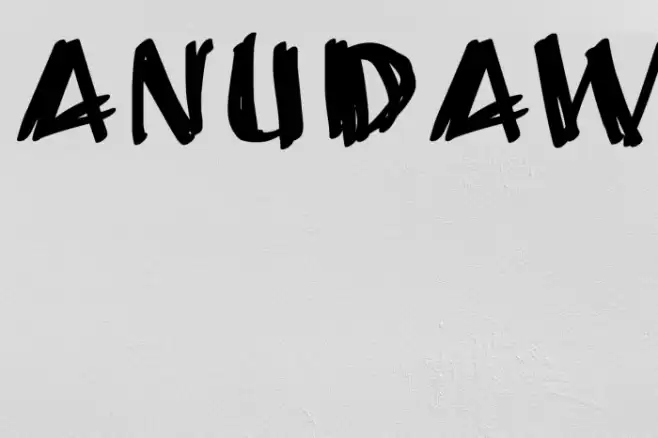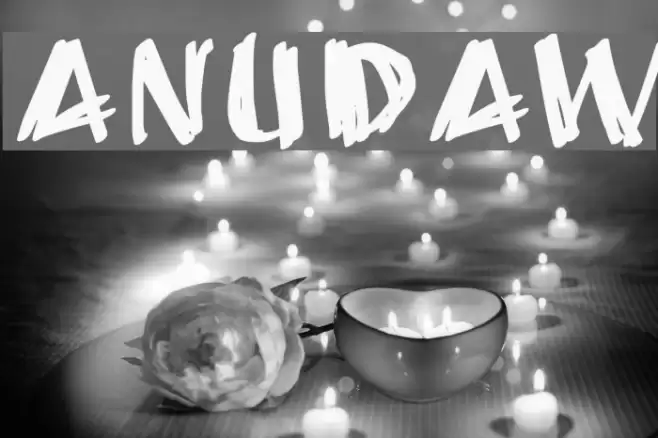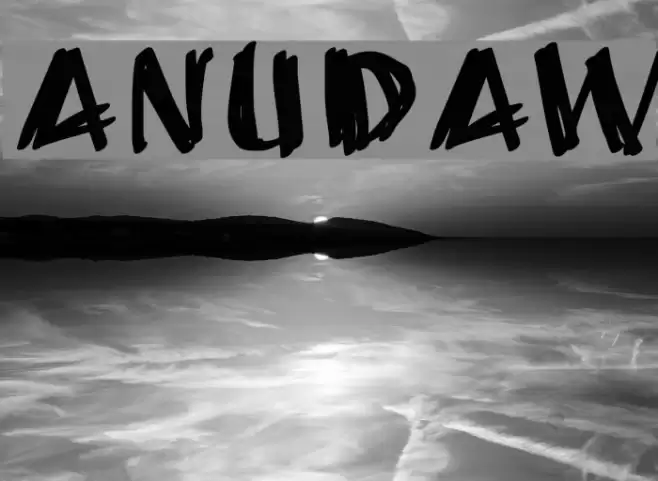
AnuDaw Font
AnuDaw Description
This font features a bold, energetic style with a hand-drawn appearance, characterized by thick, uneven strokes that convey a sense of dynamism and creativity. The letters have a rough, textured look, giving them a raw and expressive quality. The uppercase and lowercase letters maintain a consistent style, with a slight slant that adds to the font's informal and lively feel. The numbers and special characters are equally bold and maintain the same energetic style, making them stand out. This font is perfect for projects that require a personal touch or a sense of movement and excitement.
A bold, hand-drawn font with an energetic and dynamic style from Uncategorized fonts.
- Proposed Projects: Ideal for posters, album covers, branding projects, and any creative work that needs a bold, expressive touch.